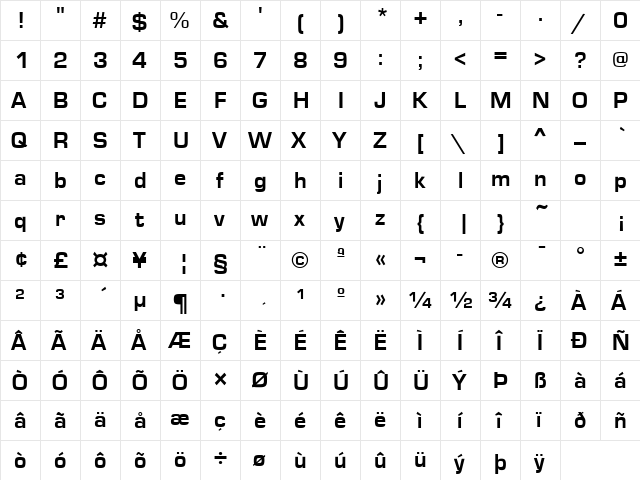
MicroSquare Bold
Design Context for MicroSquare Typeface
MicroSquare offers clean, dependable letterforms without strong stylistic allegiance, making it a practical choice for designers who need flexibility. Its bold stroke weight gives it real presence on the page.